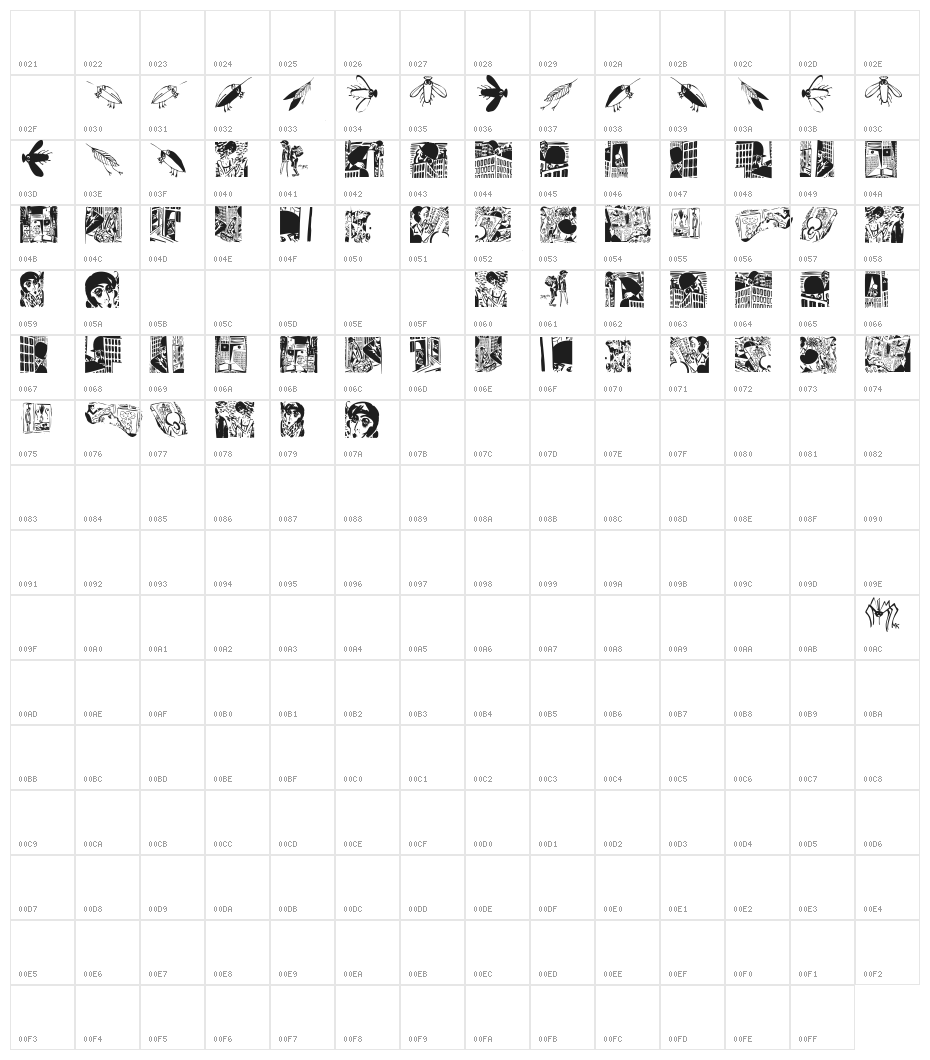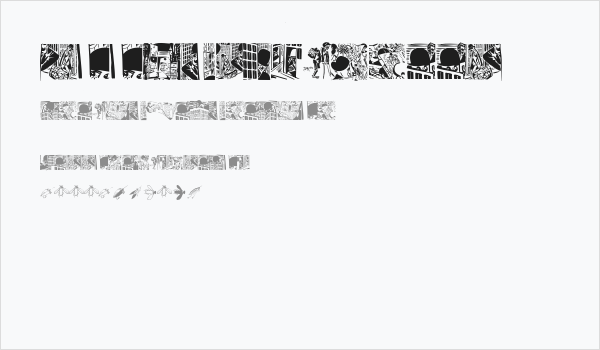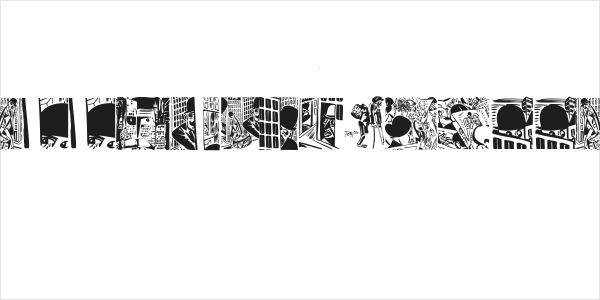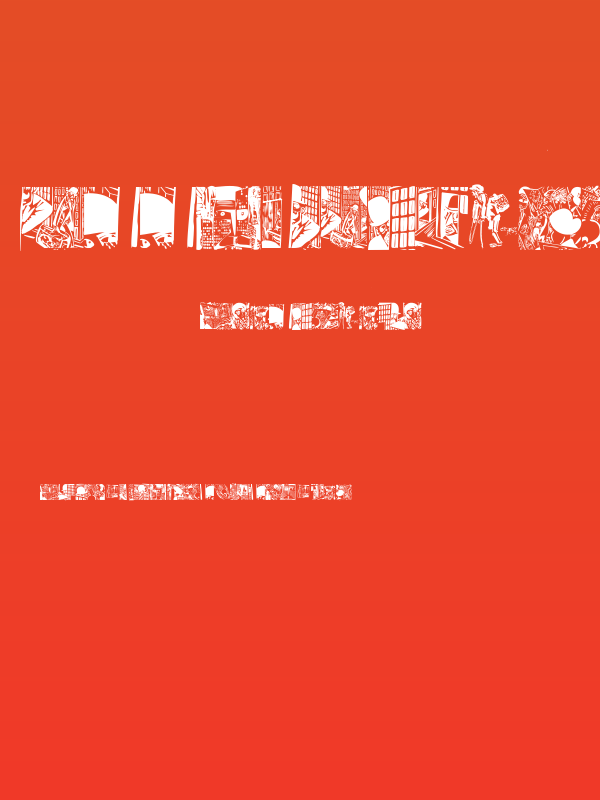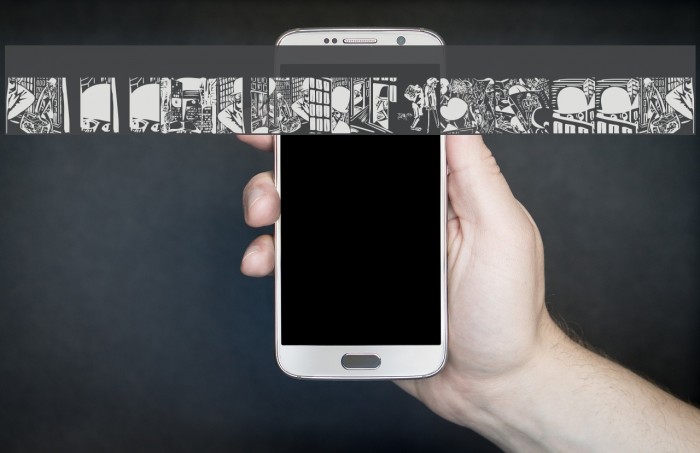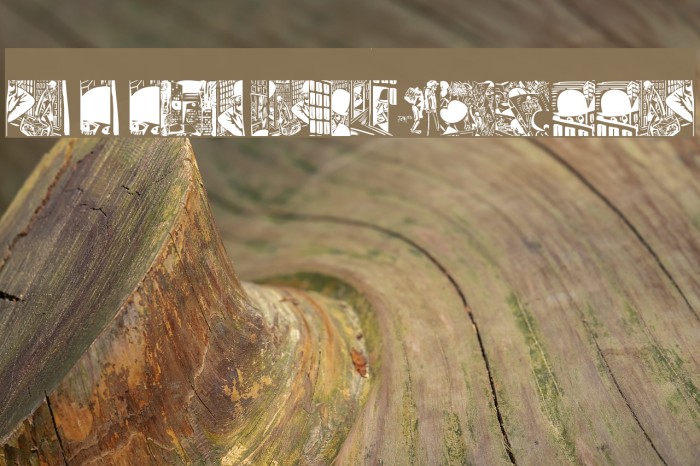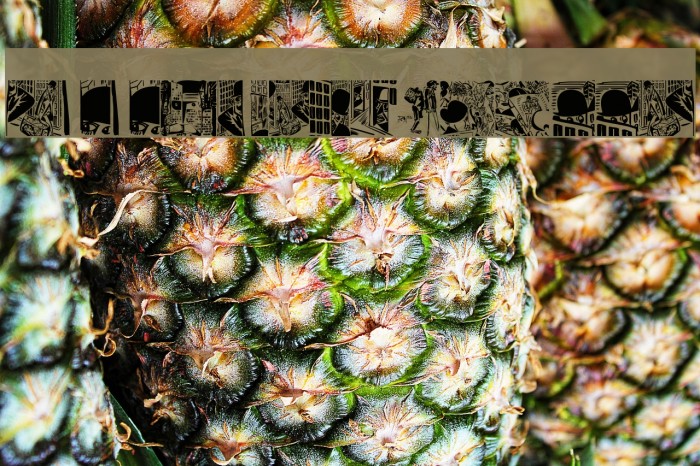
LookingMasreel Font
LookingMasreel Description
Highly decorative and illustrative font composed of intricate comic-style scenes and characters within each glyph, featuring dense black and white line art and narrative elements. Each letter and symbol is uniquely detailed, resembling panels from a graphic novel.
| Overall Style | Decorative, Comic, Artistic |
| Use Case | Headlines, Posters, Artistic projects, Themed branding |
| Proposed Projects | Graphic novels, poster art, editorial illustrations, themed event branding, experimental design projects. |